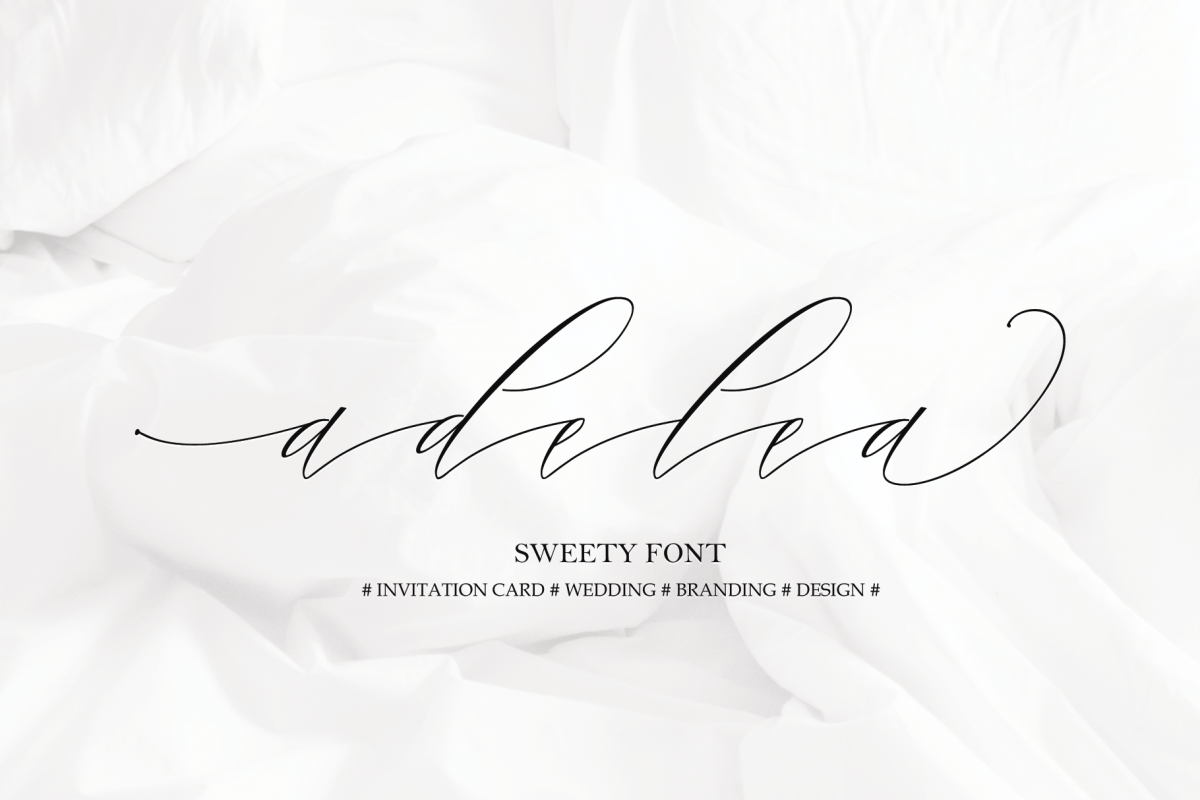
adelea
Thank you for taking your time to see adelea fonts !!! This adelea font is very tiring in its work but now you only need a moment to make various crafts that you are working on, which allows you to work on various types of your typography needs to achieve a beautiful hand made in a short time.With some forms of start and end of lowercase letters are interesting, adelea fonts are very suitable for your needs in making logos, invitations, cards, product packaging, headers, and whatever needs you want.You will be very satisfied with the presence of attractive replacement letters, where you can make according to the form you expect ,, adelea fonts are equipped with several lowercase sets including swash that you can use to realize a handwork that matches your imagination.you will get: